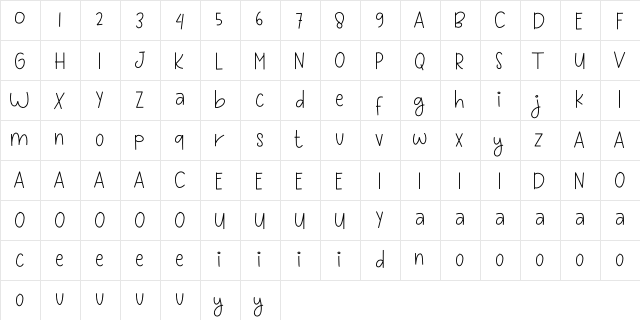
Love and sweet massage Regular
Design Context for Love and sweet massage Typeface
Love and sweet massage is a composed and adaptable typeface that performs quietly and consistently across a wide range of design contexts.
Pro Tip: Use Love and sweet massage in both headline and body roles to test its range before committing to a single application.